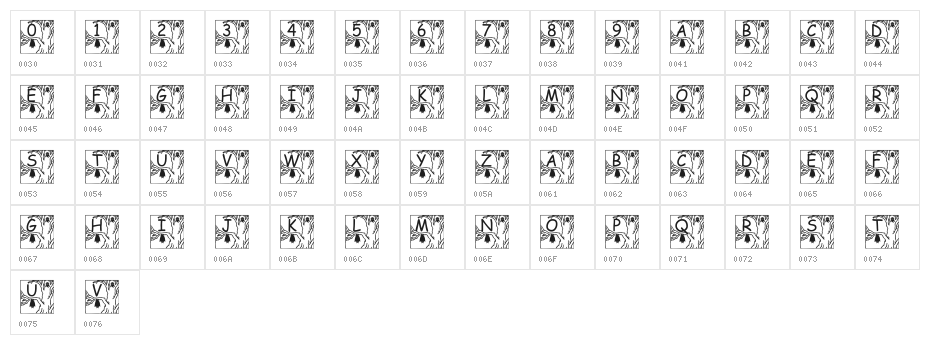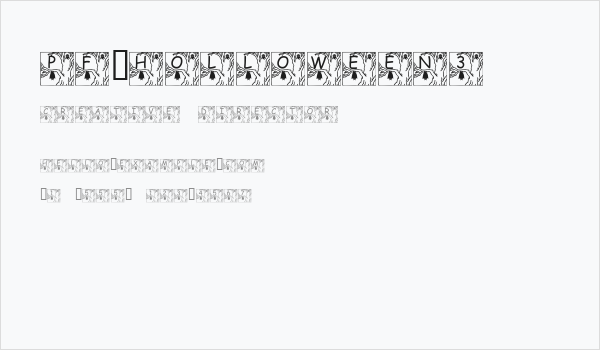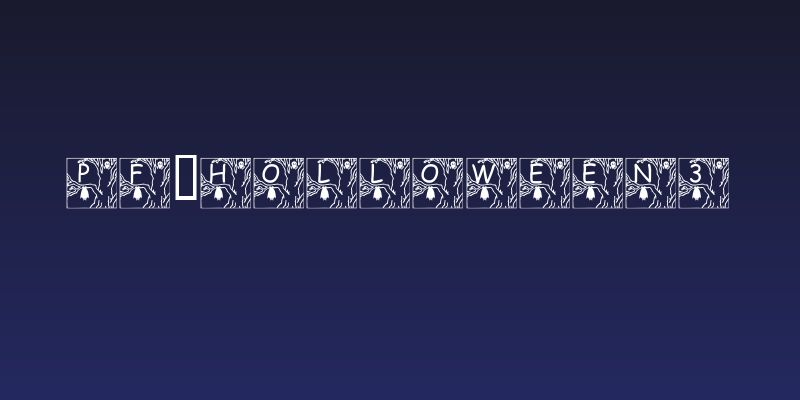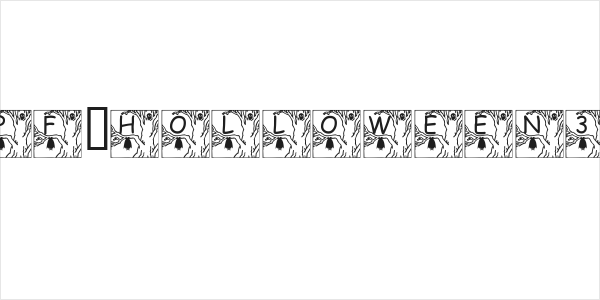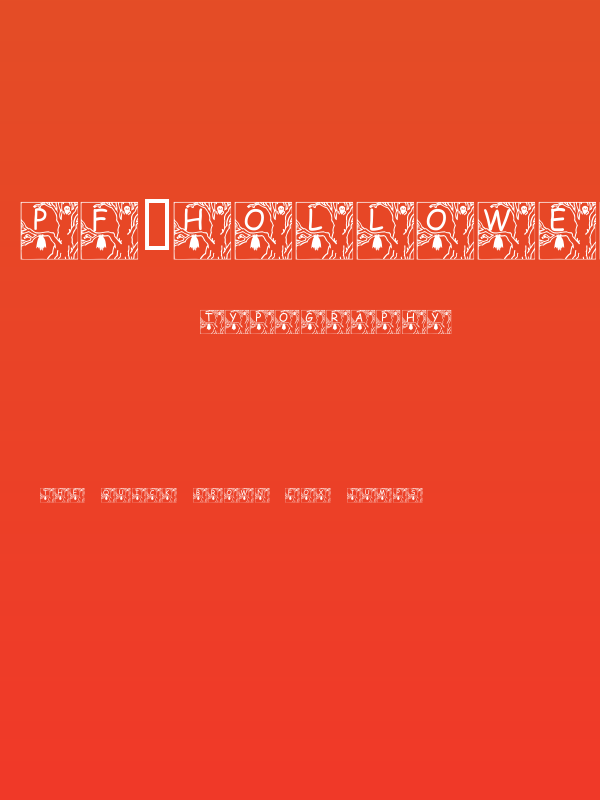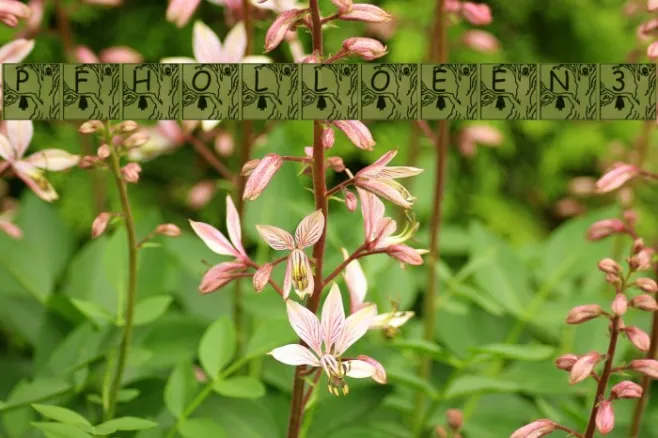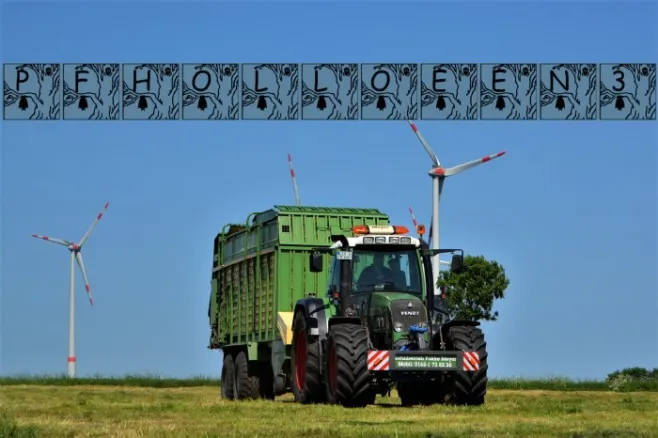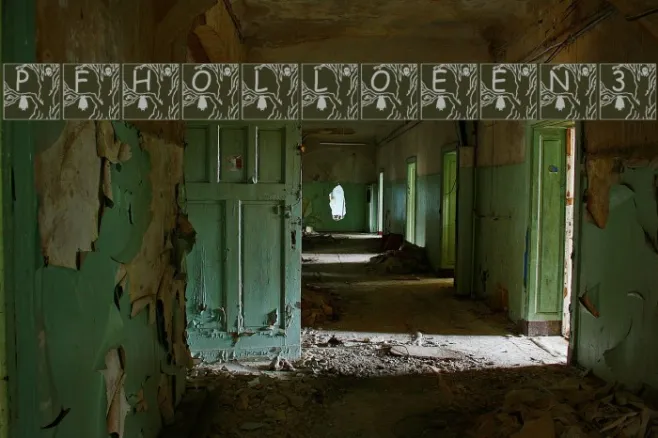
pf_holloween3 Font
pf_holloween3 Description
This font features a spooky, Halloween-themed design with each character enclosed in a square frame. The letters and numbers are styled with a decorative, eerie motif that includes ghostly figures and haunting elements. The characters are bold and eye-catching, making them ideal for creating a chilling atmosphere. The intricate design within each character adds a unique flair, perfect for themed events or projects that require a touch of the supernatural. The font's playful yet spooky aesthetic makes it suitable for Halloween invitations, posters, and creative projects that aim to capture the spirit of the holiday.
| Proposed Projects | Ideal for Halloween invitations, themed posters, party decorations, and creative projects needing a spooky touch. |